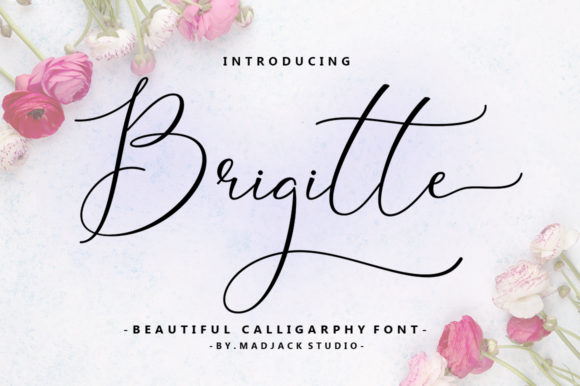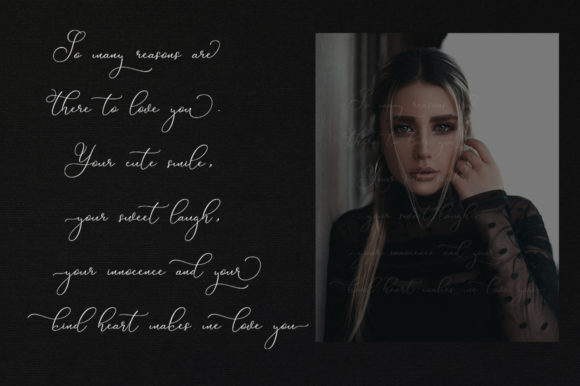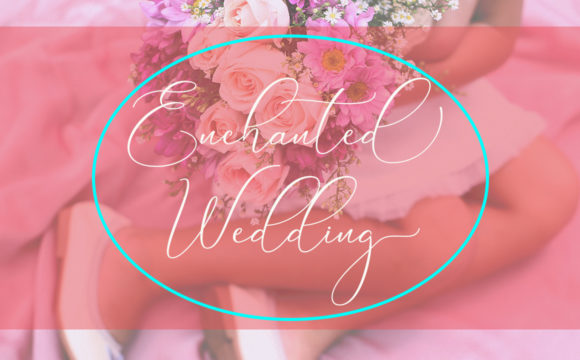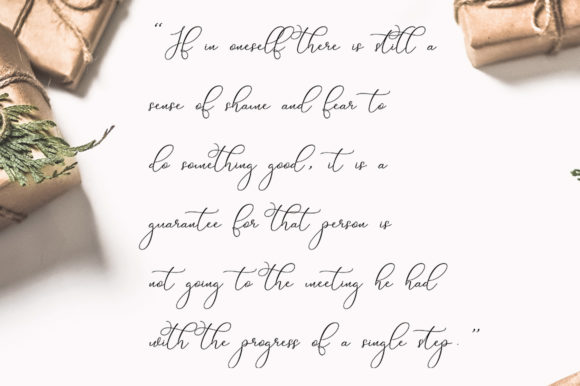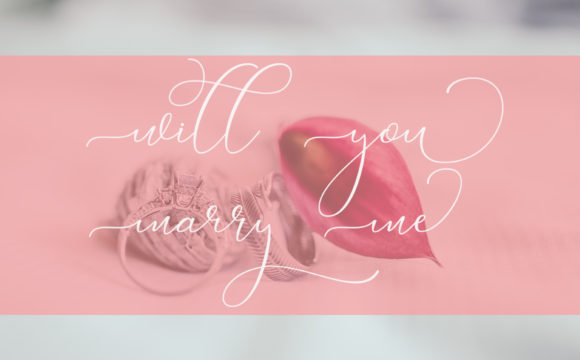
HomeScript FontsBrigitte Font Script Fonts Brigitte Font FacebookXPinterestWhatsApp Brigitte Font Poster 2 Brigitte Font Poster 3 Brigitte Font Poster 4 Brigitte Font Poster 5 About Brigitte Font Brigitte is a unique and lovely script font with amazing swashes. DOWNLOAD NOW People also explored Foxglove Script Font Mandailing Script Font Butter Slices Font Beans Plantain Font Cutemas Font Tyani Font Dhafina Font Emily Diana Font Baggel Font 356 0 TagsBrigitte Font Previous articleAmira Calm FontNext articleAnteiku Font LEAVE A REPLY Cancel reply Comment: Please enter your comment! Name:* Please enter your name here Email:* You have entered an incorrect email address! Please enter your email address here Website: Save my name, email, and website in this browser for the next time I comment. Personal Use Free 08 Underground Personal Use Free Read more about this font Rolling Door Personal Use Free Read more about this font Astagina Signature Personal Use Free Read more about this font Propaganda Personal Use Free Read more about this font BLOG Using Fonts in Digital Marketing: Tips to Strengthen Your Brand Identity In the realm of digital marketing, every visual element plays a crucial role in shaping a brand's identity, and fonts are no exception. The... 5 Fonts That Will Dominate Design Trends in 2026 Best Fonts for YouTube Videos: Make Your Thumbnails Stand Out Fonts That Capture the Spirit of New York City